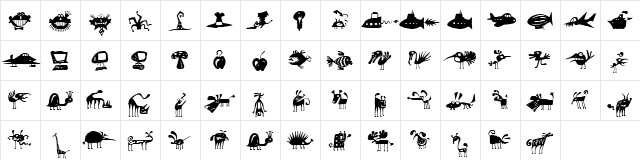
PF Wonderbats Regular
| Foundry | Parachute蠗orldwide |
| Designer | Dimitris Foussekis |
Design Context for PF Wonderbats Typeface
PF Wonderbats is a composed and adaptable typeface that performs quietly and consistently across a wide range of design contexts.